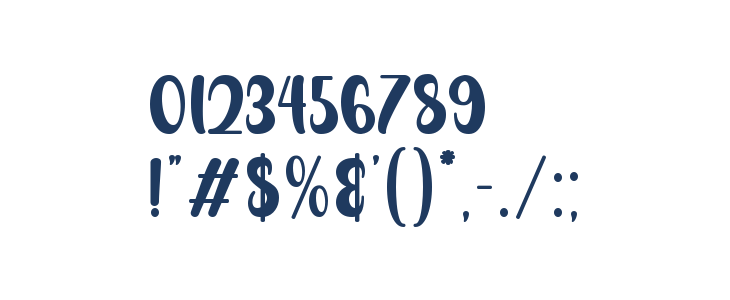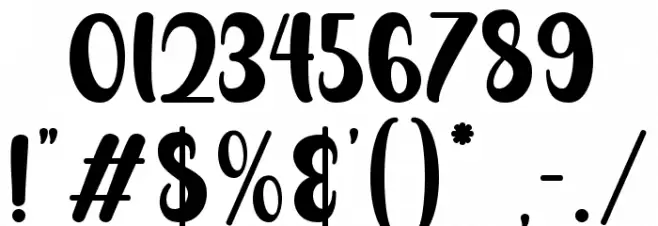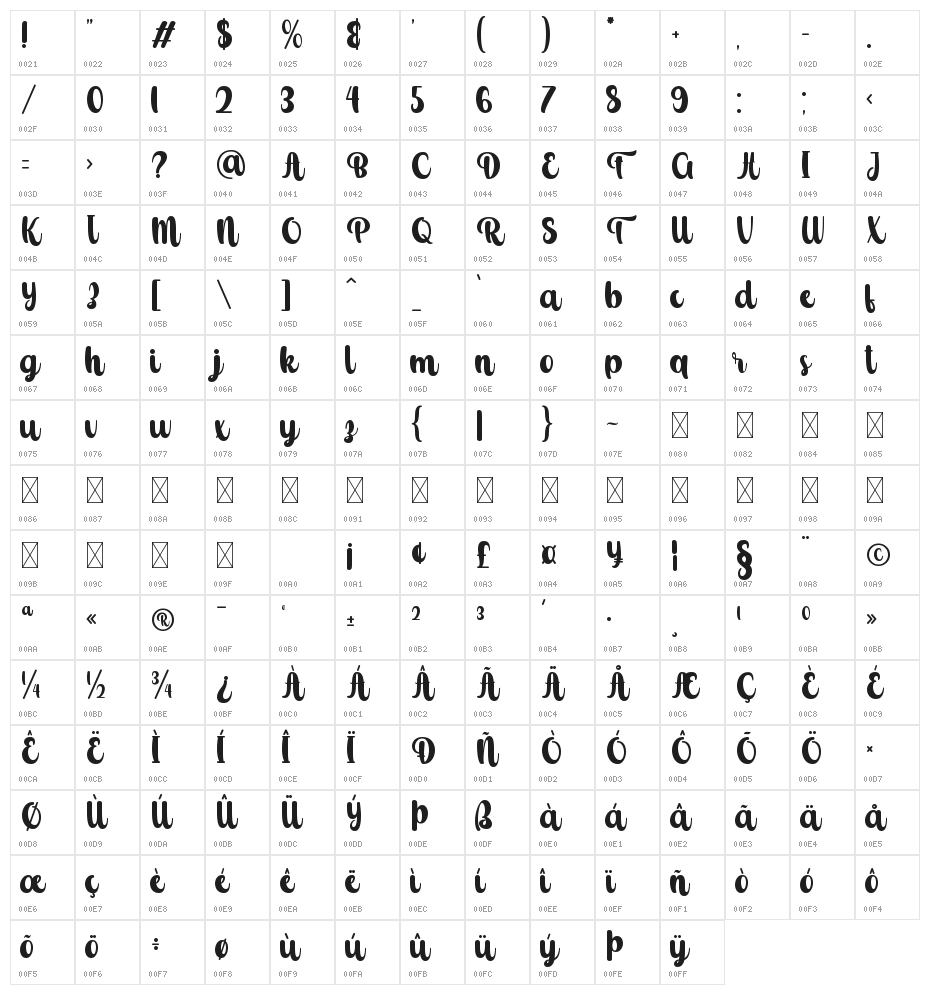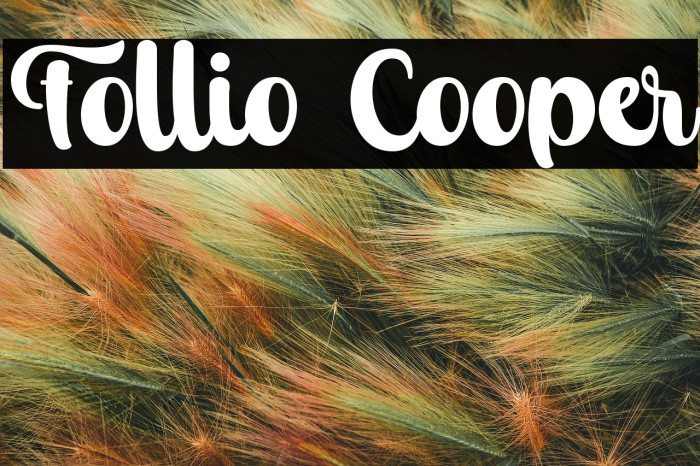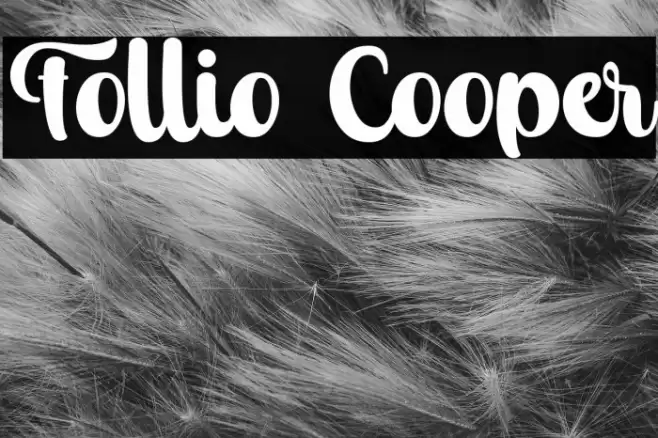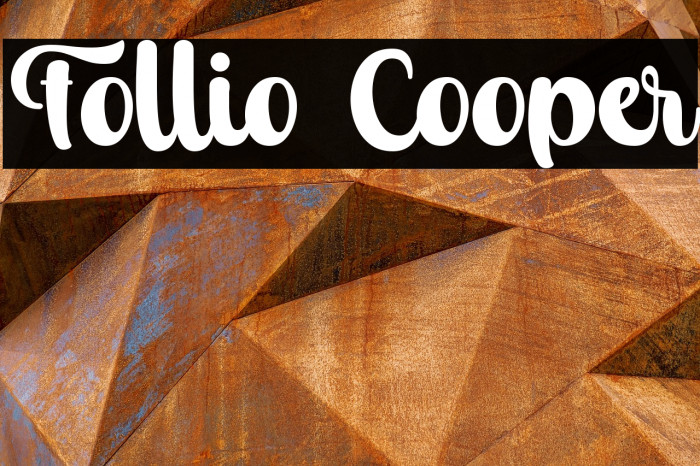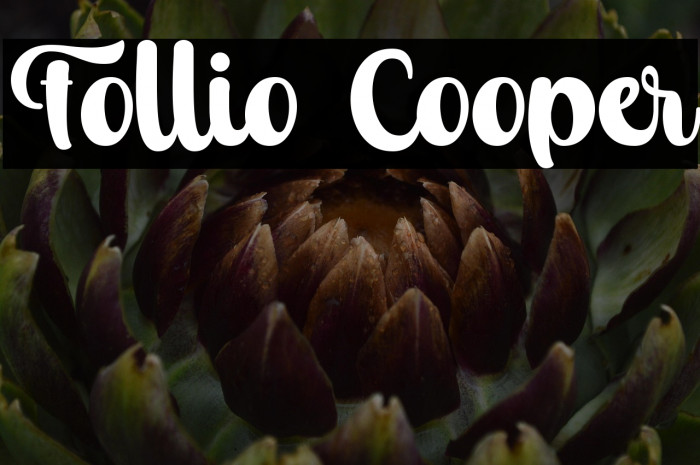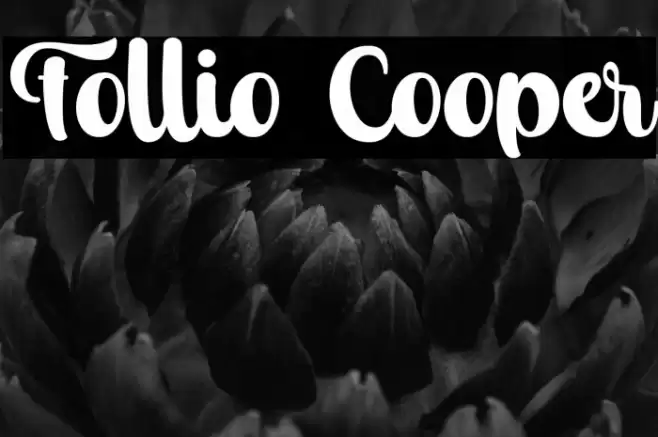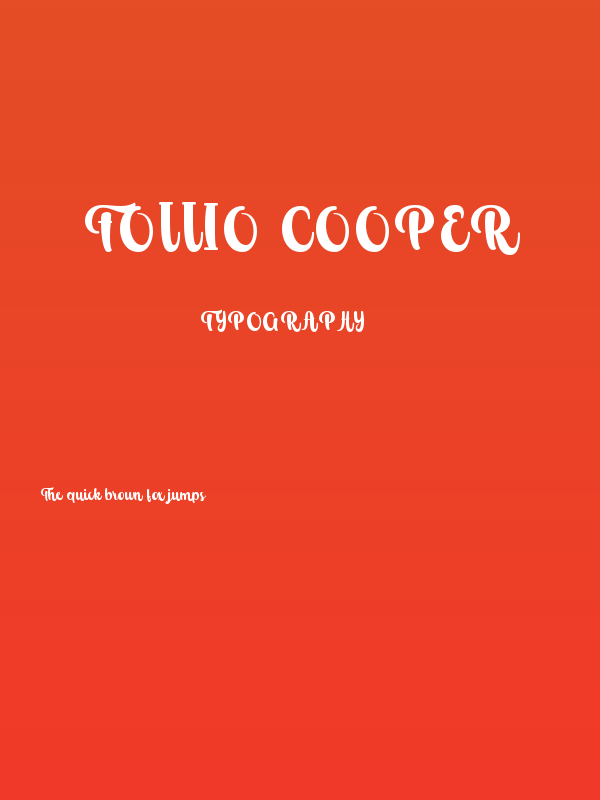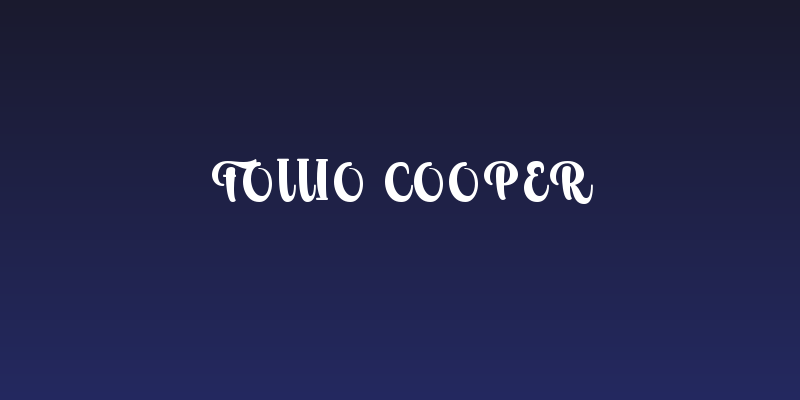
Follio Cooper Font
Follio Cooper Description
This font features a playful and bold script style with a smooth, flowing appearance. The characters are rounded and connected, giving it a handwritten feel. The uppercase letters maintain a consistent height, while the lowercase letters have a slightly exaggerated loop, adding to its whimsical nature. The numbers and special characters are designed to match the overall style, ensuring a cohesive look. The font's boldness makes it stand out, while the smooth curves provide a friendly and approachable aesthetic.
| Proposed Projects | Ideal for greeting cards, playful branding, children's books, and social media graphics. |